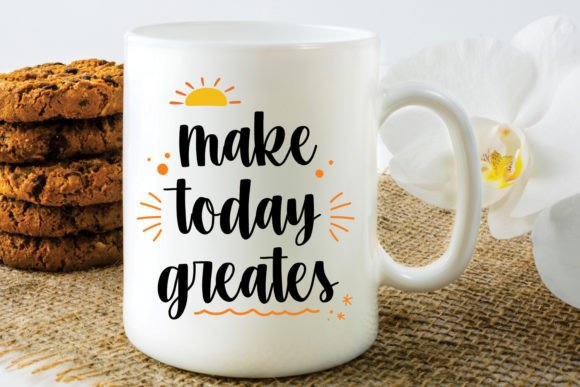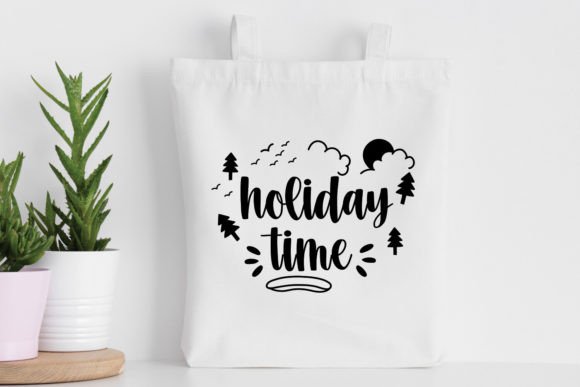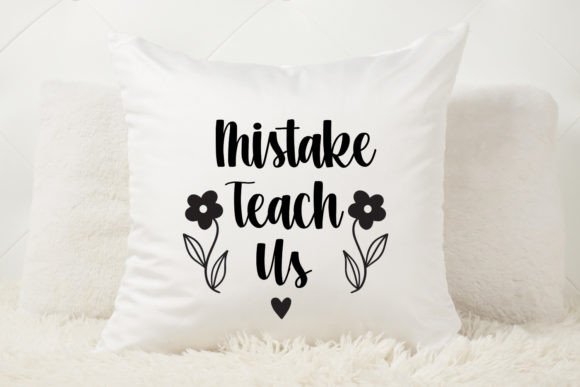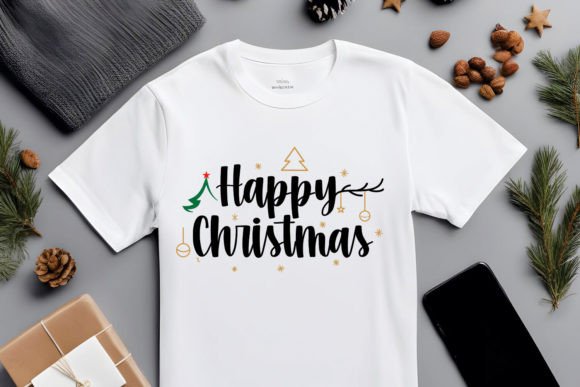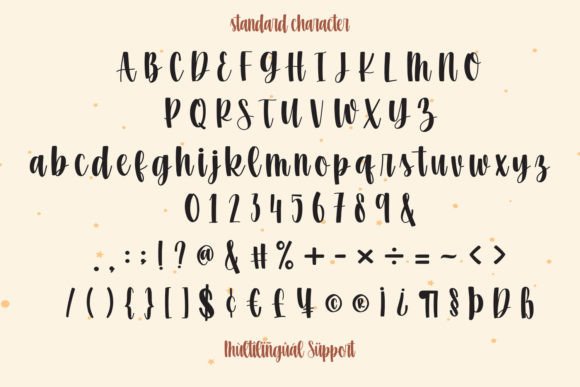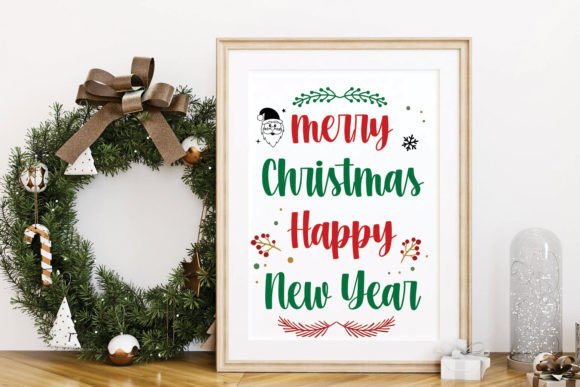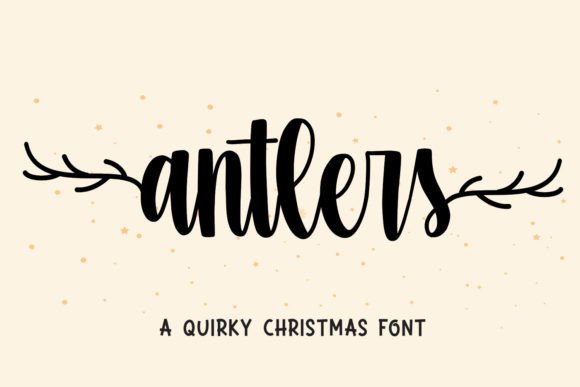
Introducing Antlers: The Whimsical Handwritten Font for Holiday Cheer
As a designer, I’ve had my fair share of late nights scrolling through font libraries, searching for that perfect match for my project. But one winter evening, while working on a festive holiday card design, I stumbled upon a gem that stole my heart – Antlers. This charming handwritten font instantly captured the essence of Christmas, winter wonder, and the joyous celebrations of the holiday season.
The Magic of Antlers
Antlers seamlessly weaves together the festive spirit of Christmas, the coziness of winter, and the creative vibe of crafting and embroidery. Inspired by the gentle curves of reindeer antlers, each character exudes a playful elegance, making it an ideal choice for a variety of creative projects. From festive holiday cards to whimsical embroidery patterns, Antlers brings a touch of woodland charm to any design.
- ✨ Whimsical and charming design that instantly evokes a sense of holiday cheer
- ✅ Highly versatile and adaptable for various creative projects
- 💫 Adorned with seasonal elements like snowflakes and twinkling stars, adding a touch of magic to designs
- 🎨 Seamlessly transitions between winter, spring, autumn, and New Year’s celebrations
- ⚠️ Some characters may appear a bit delicate or thin, requiring careful consideration for large-scale designs
- 🤔 Limited availability of certain OpenType features, which may impact advanced typographic control
The creator of Antlers drew inspiration from the gentle curves of reindeer antlers and the magic of winter nights. By combining these elements with a playful, handwritten approach, Antlers was born – a font that captures the essence of the holiday season and the joy of creative expression.
Q: What makes Antlers unique?
A: Antlers stands out with its whimsical, handwritten design, inspired by reindeer antlers and adorned with seasonal elements like snowflakes and twinkling stars.
Q: Is Antlers available in different weights or styles?
A: Currently, Antlers is available in a single weight. However, the font’s versatility and adaptability make it easy to use in a variety of design contexts.